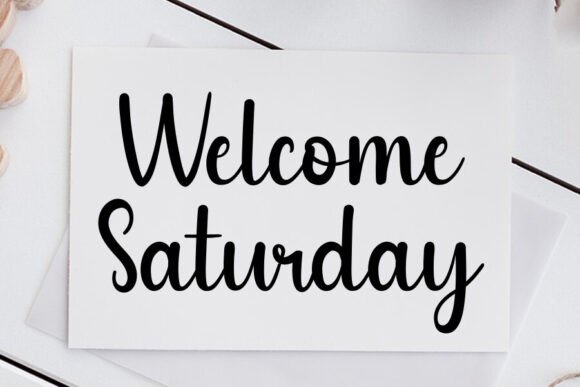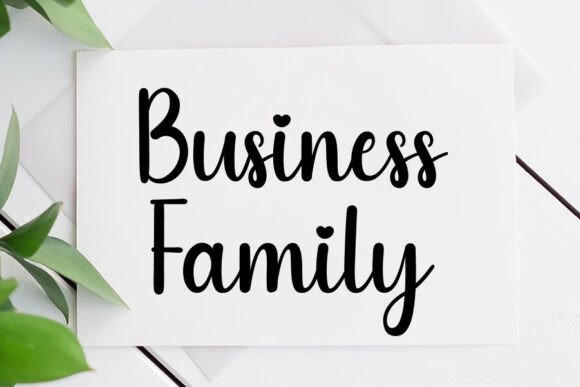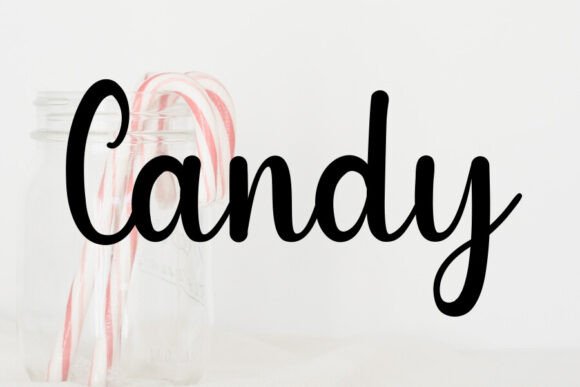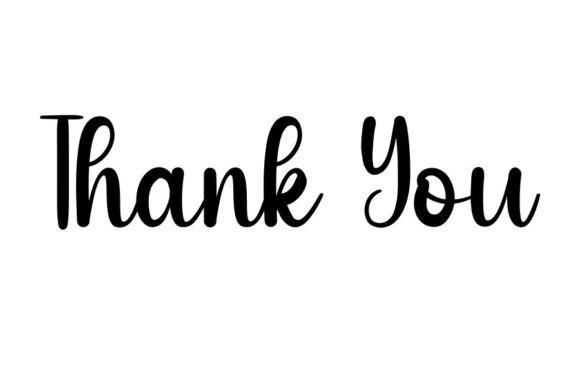
Discover the Charm of Bucket Font: A Timeless Handwritten Delight
Are you a designer or crafter looking for a font that adds a touch of personality to your creations? Look no further than the Bucket Font, a lovely and timeless handwritten font that’s perfect for creating eye-catching logos, branding, and quotes.
What Makes Bucket Font So Special?
Bucket Font is a unique and beautiful handwritten font that stands out from the crowd. Every letter has a distinctive and elegant touch that will make your design come alive! The font’s charm lies in its imperfections, which give it a warm and organic feel that’s perfect for designs that require a personal touch.
Bucket Font is an excellent choice for designers and crafters who want to create stunning logos, branding materials, and quotes. The font’s elegant and cursive style makes it perfect for:
- Logos: Create a lasting impression with a custom logo that showcases your brand’s personality.
- Branding: Develop a consistent visual identity that sets your brand apart from the competition.
- Quotes: Add a touch of elegance and sophistication to your inspirational quotes and sayings.
Why Choose Bucket Font?
There are many reasons why Bucket Font should be your go-to font for your design projects. Here are just a few:
- Unique and Beautiful: Every letter has a unique and beautiful touch that will make your design stand out.
- Timeless: Bucket Font has a classic and timeless feel that won’t go out of style.
- Versatile: The font is perfect for a wide range of design projects, from logos and branding to quotes and more.
- Elegant and Cursive: The font’s elegant and cursive style adds a touch of sophistication to any design.
Tips for Using Bucket Font
To get the most out of Bucket Font, here are some tips to keep in mind:
- Use it sparingly: Bucket Font is a statement font, so use it sparingly to make a lasting impression.
- Pair it with other fonts: Experiment with pairing Bucket Font with other fonts to create a unique and visually appealing design.
- Play with colors: Bucket Font looks great in a variety of colors, so don’t be afraid to experiment and find the perfect hue for your design.